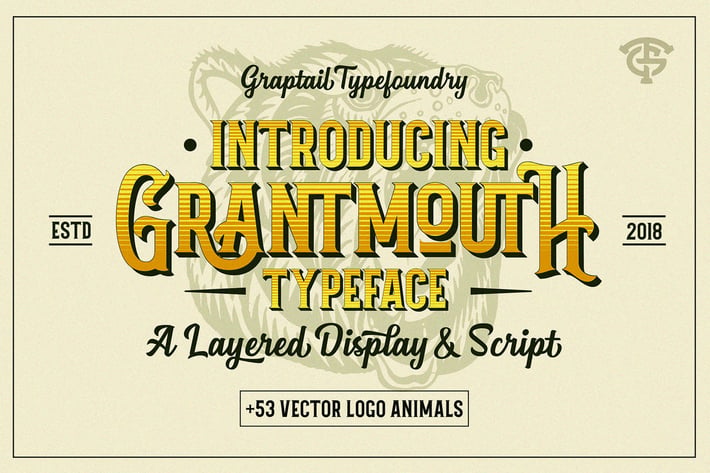
Grantmouth Typeface
Grantmouth is a font display is made by hand, inspired by classic labels. So much inspiration as you access it. All benefits you will feel when you start to create works with Grantmouth fonts. What are you waiting for, the best price and best quality we give you with pride.